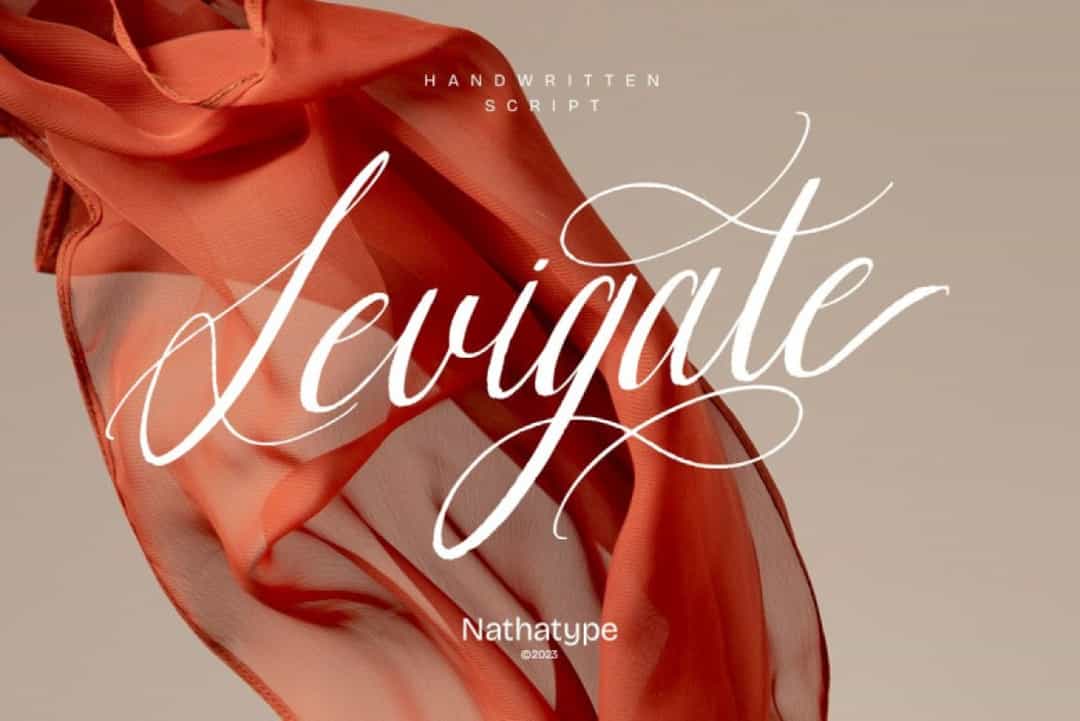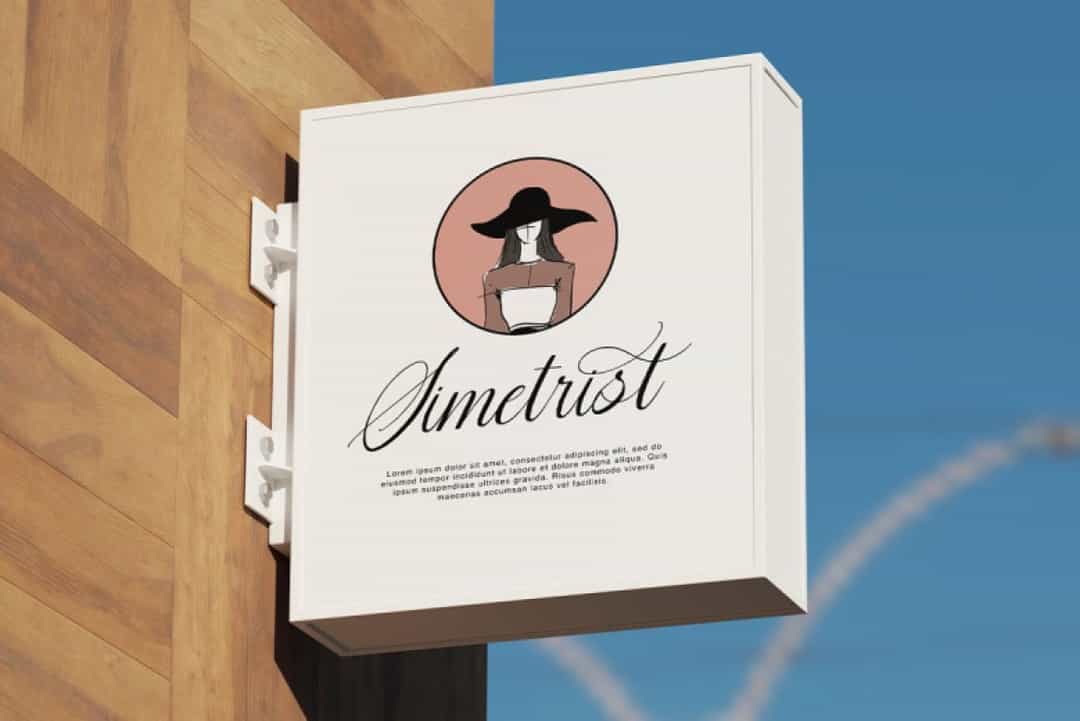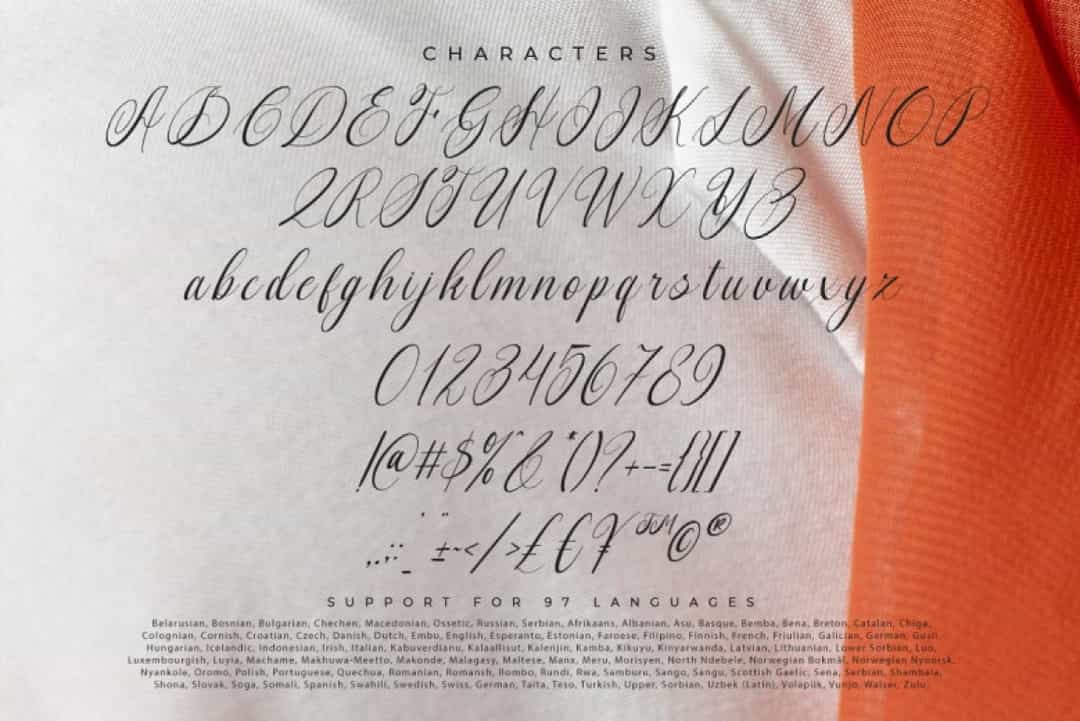
Levigate is an elegant handwritten script font which captures the spirit of cursive writing with elegance. Each letter in this typeface features high contrast for added excitement and fascination! This font makes any project chic and refined in appearance.